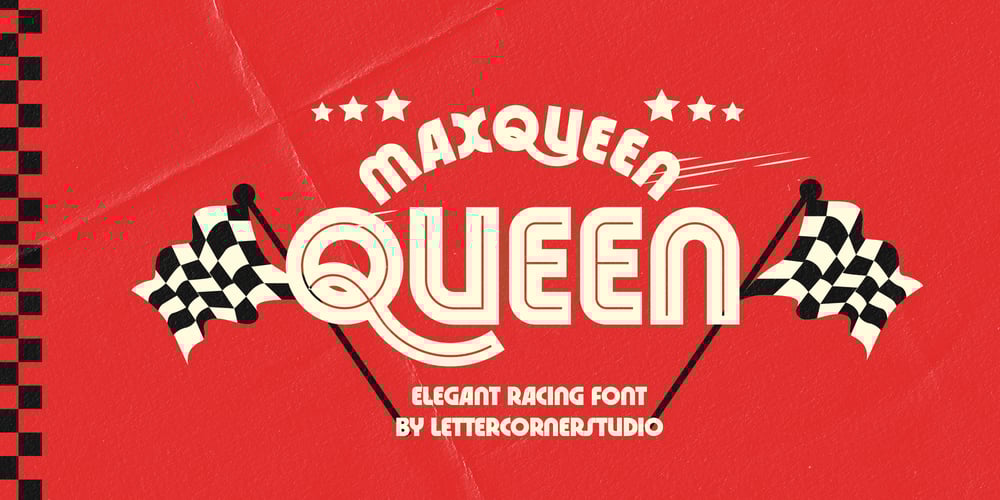
Maxqueen
Maxqueen font
Maxqueen Font Family was designed by Muhammad Afif Ersya and published by Mevstory Studio. Maxqueen contains 4 styles and family package options. Introducing by Lettercorner Studio!Macqueen is a bold and neat display typeface font that exudes confidence and modernity. With its strong, clean lines and sharp edges, this font is designed to make a bold statement.Macqueen boldness gives it a commanding presence, making it ideal for designs that require attention-grabbing headlines or strong brand identities. Despite its simplicity, the font still manages to maintain a sense of elegance and sophistication.This makes Macqueen a versatile choice for a wide range of design projects, including advertising materials, logos, posters, and website headers.